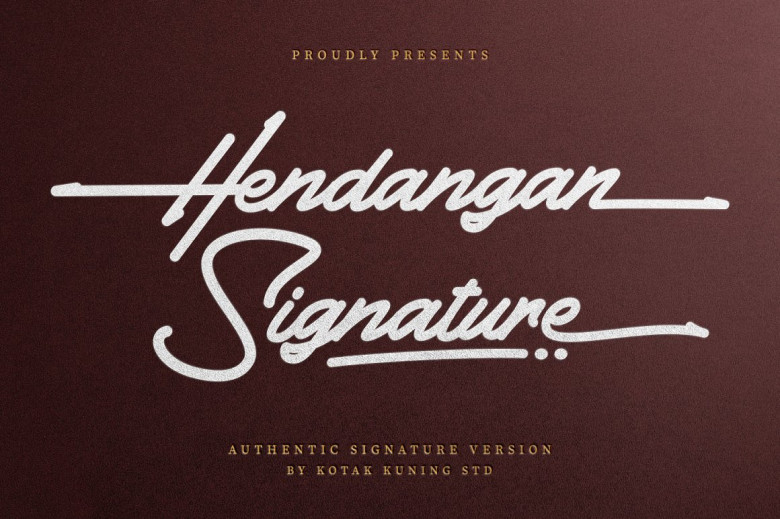
Hendangan Signature Font
Hendangan Signature Font has an elegant and natural flow that makes it ideal for branding. Hendangan Signature can also be used in logos, invitations, stationery designs, wedding programs or social media posts; furthermore it can also be used for product packaging design, label creation, photography watermarks special event ads.